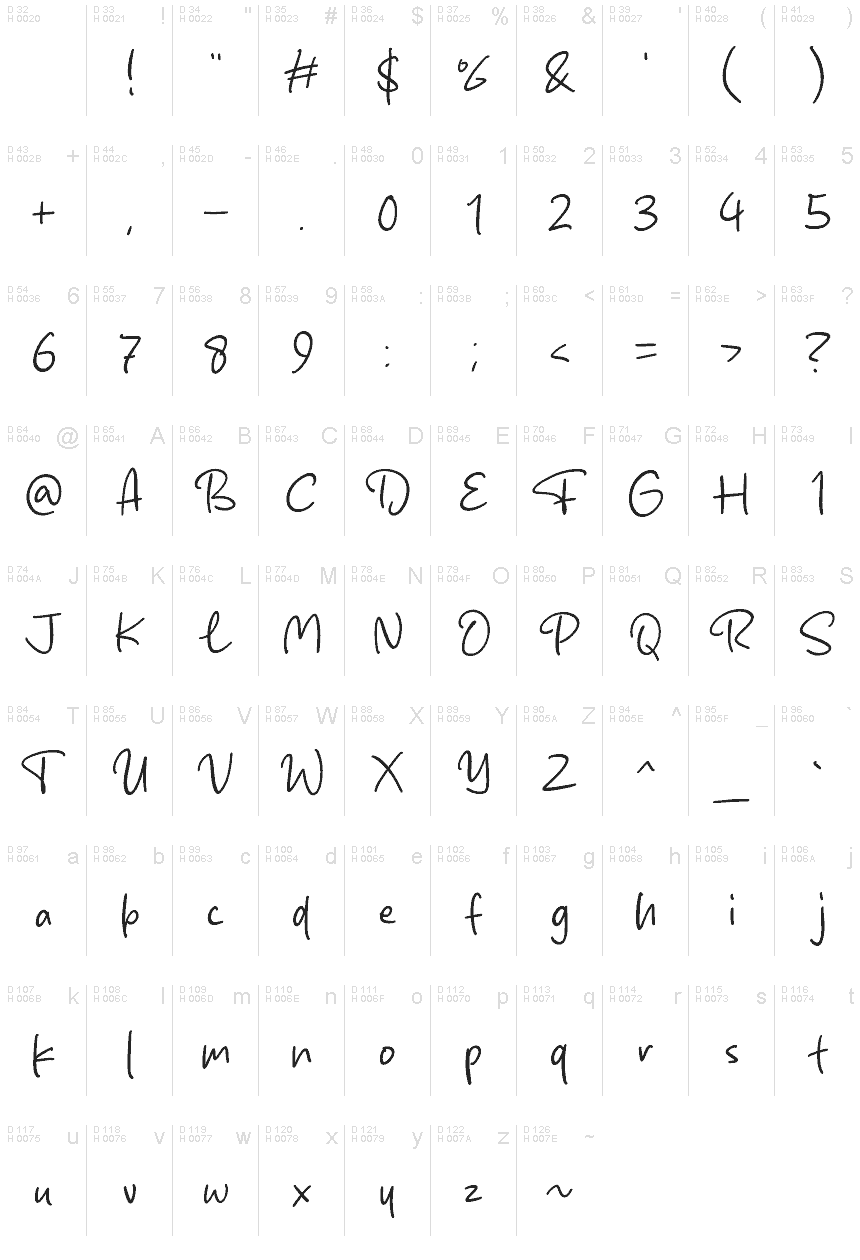
Fish Catcher
Fish Catcher font by MJType blends a handwritten aesthetic with a casual style for an energetic appeal. This modern font offers an expressive and genuine look for creative designs that need both elegance and authenticity. Deserving of attention, this free handwritten font will transform your projects thanks to its relaxed warm characters and noticeable rhythm.
Use Fish Catcher to personalize titles in stationery sets, invitations, greeting cards, online ads, or blog posts. It can give personality to signage typography, product packaging design, app interfaces, handmade crafts branding, wall quotes graphics for websites and social media platforms.